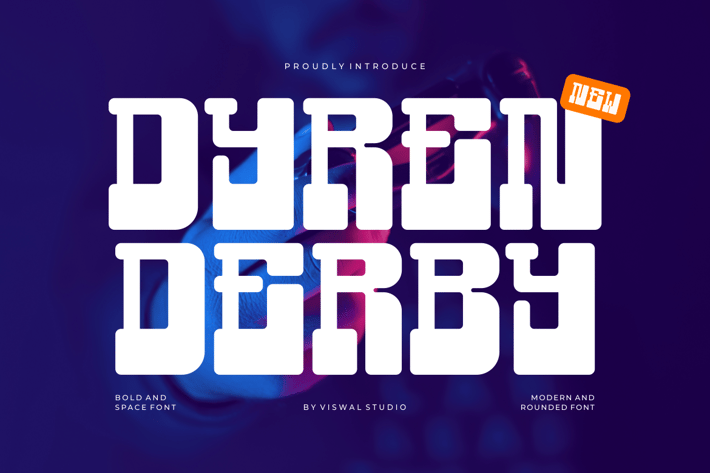
Dyren Derby - Rounded & Bold Font
Presenting Dyren Derby - Font is suitable for badge, labels, logo, branding, magazine, poster and etc. Our fonts have Uppercase & Lowercase, Numeral & Punctuation, Multilingual support and Opentype Features. For Amazing designs you can mix with other fonts as a complement.